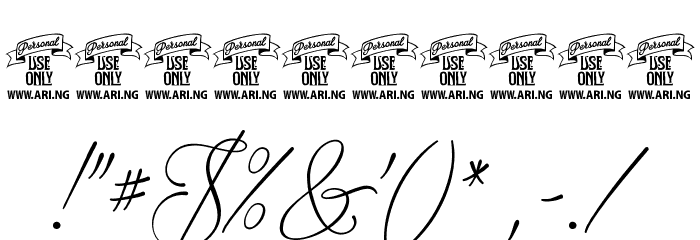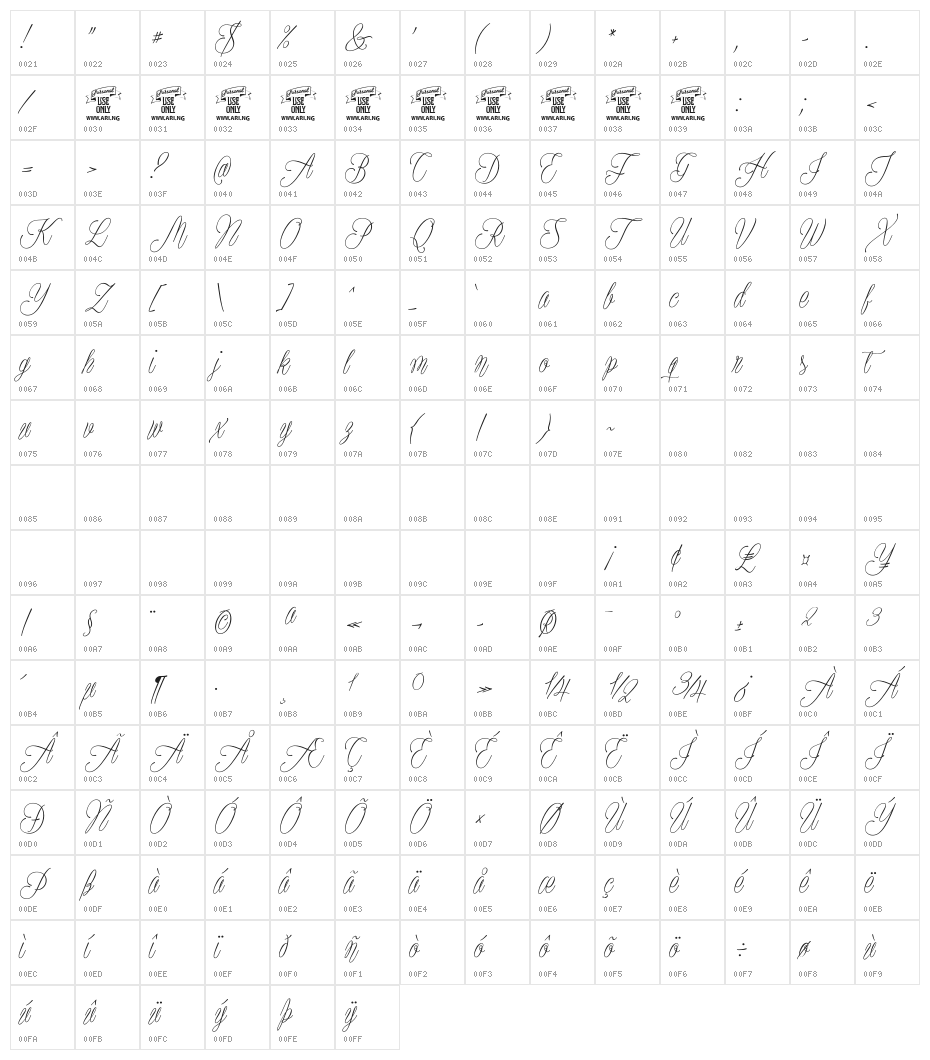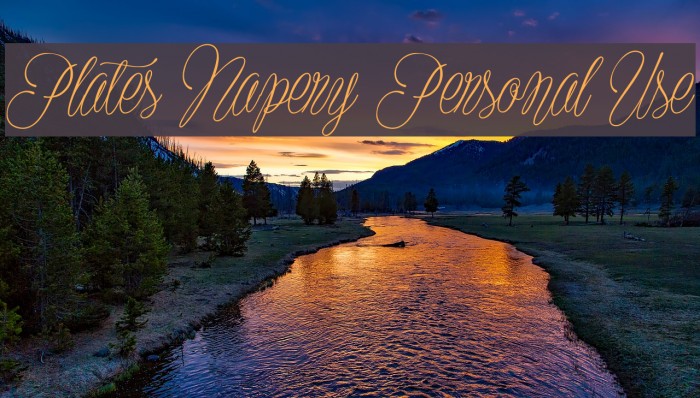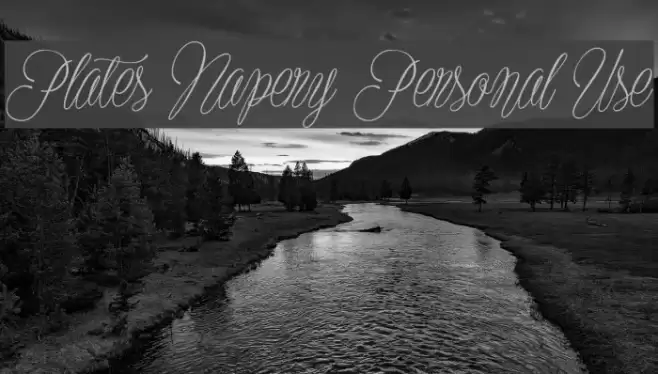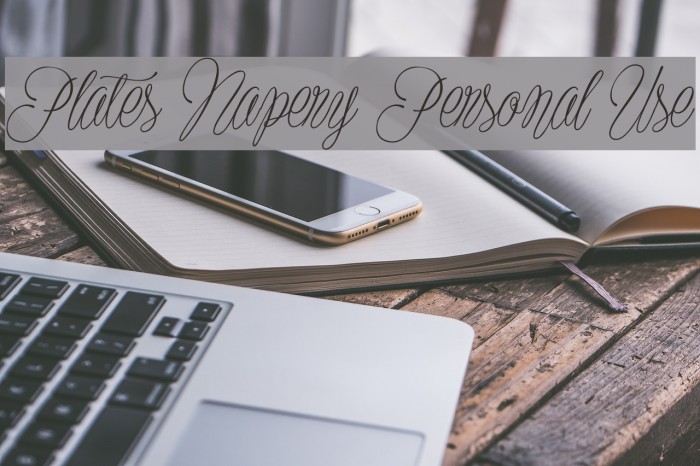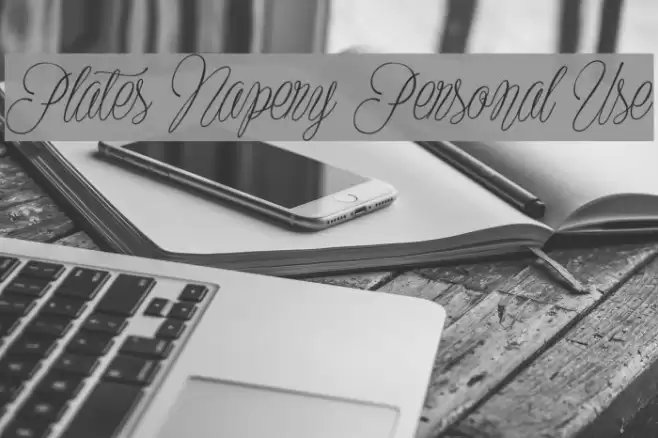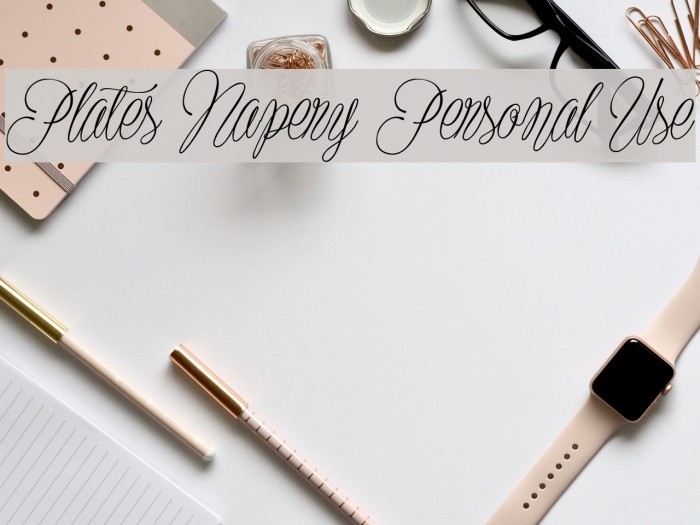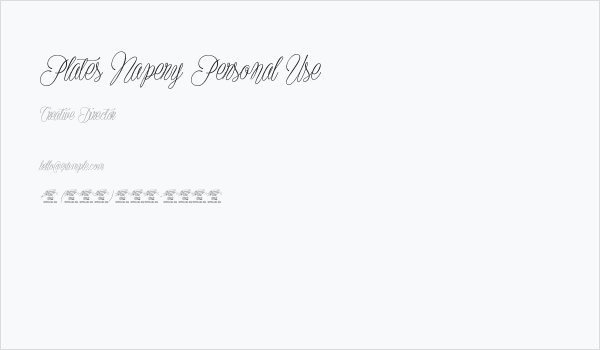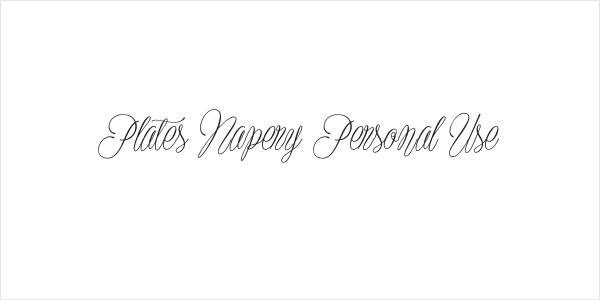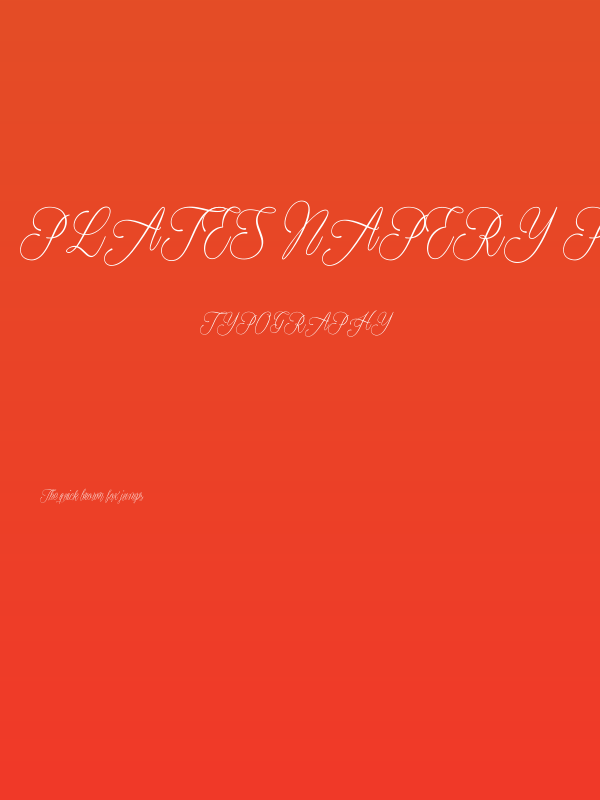
Plates Napery Personal Use Font
Plates Napery Personal Use Description
This elegant script font features a flowing, cursive style with intricate loops and swashes that give it a sophisticated and artistic appearance. The uppercase letters are tall and graceful, while the lowercase letters maintain a consistent flow, enhancing readability despite the decorative nature. The font's thin strokes and high contrast between thick and thin lines add a touch of delicacy and refinement. It includes a full set of uppercase and lowercase letters, numerals, and a variety of special characters, making it versatile for various design needs.